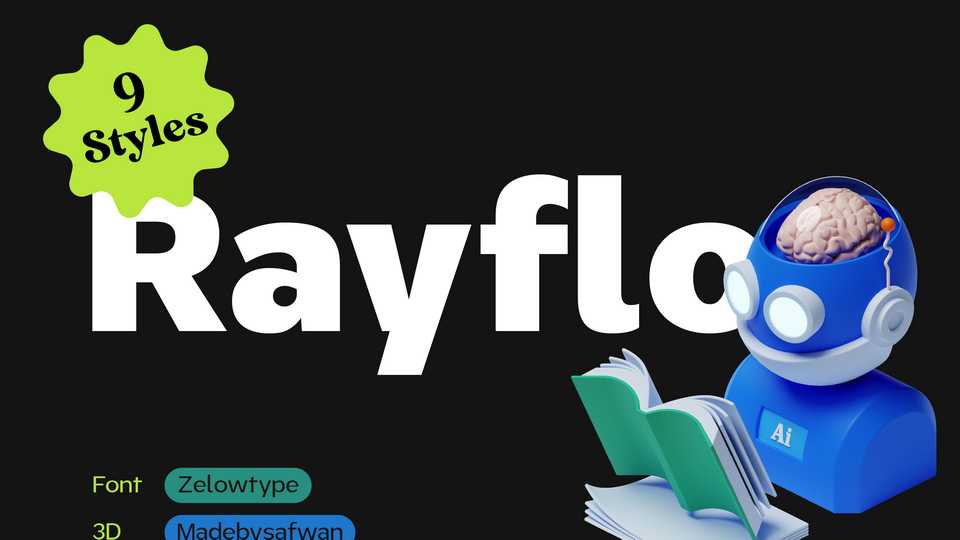
Download ZT Rayflo font, a sans serif typeface with full simplicity, no clutter in it, just fonts with a gentle flow. ZT Rayflo even with its simple style is perfect if you need it for your design, it will always look fashionable and stylish wherever it is.
Designer: Zelow Type